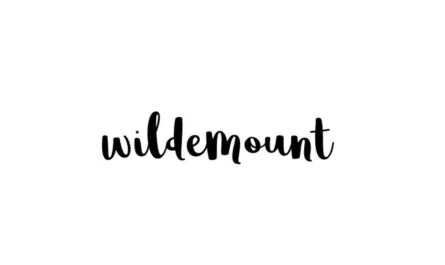
Dopestyle Font Free Download
Isn’t this font stylish? Dopestyle Font has such interesting, visible strokes, and the contrast really helps push the aesthetic forward. Use this as your next display type choice for an eye-catching solution.
A famous font foundry Octotype Font Foundry took charge of designing and sharing it for the first time in October 2017.
The foundry is owned by Thomas Boucherie, so he became the primary designer of the font. He made all the texture by hand and applied it with a brush.
He keeps up the bold strokes with great swashes just to make it more surprising. That’s why it’s a really great option for adding a natural look to designs.
Because of this bold texture, it is also an excellent choice for display tasks and some printing tasks. So, download it today and enjoy it.
On the other hand, in longer projects, you can pair fonts with others. This font has a stylish bold appearance.
So, this is a great option for a really cool design. You can also create amazing designs if you have some projects. For example, it will be helpful for special event cards, unique logos, social media posters, banners, flyers, and movie posters.